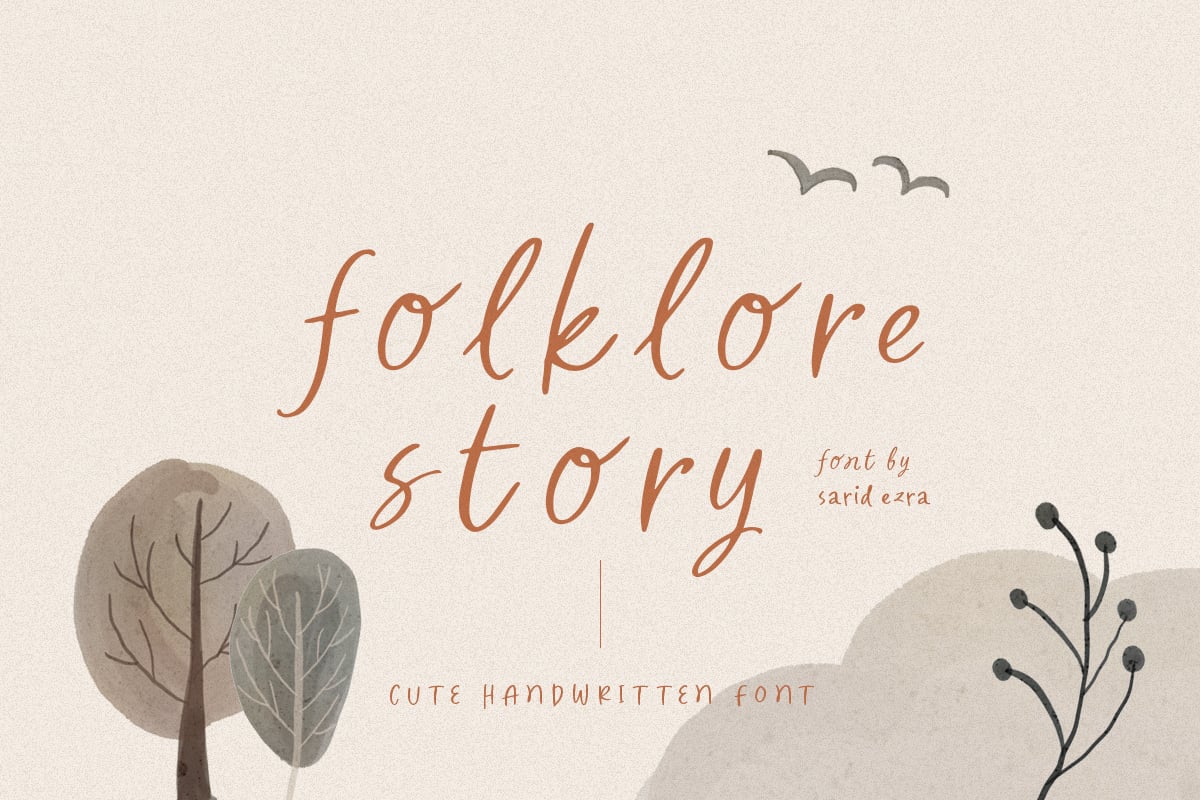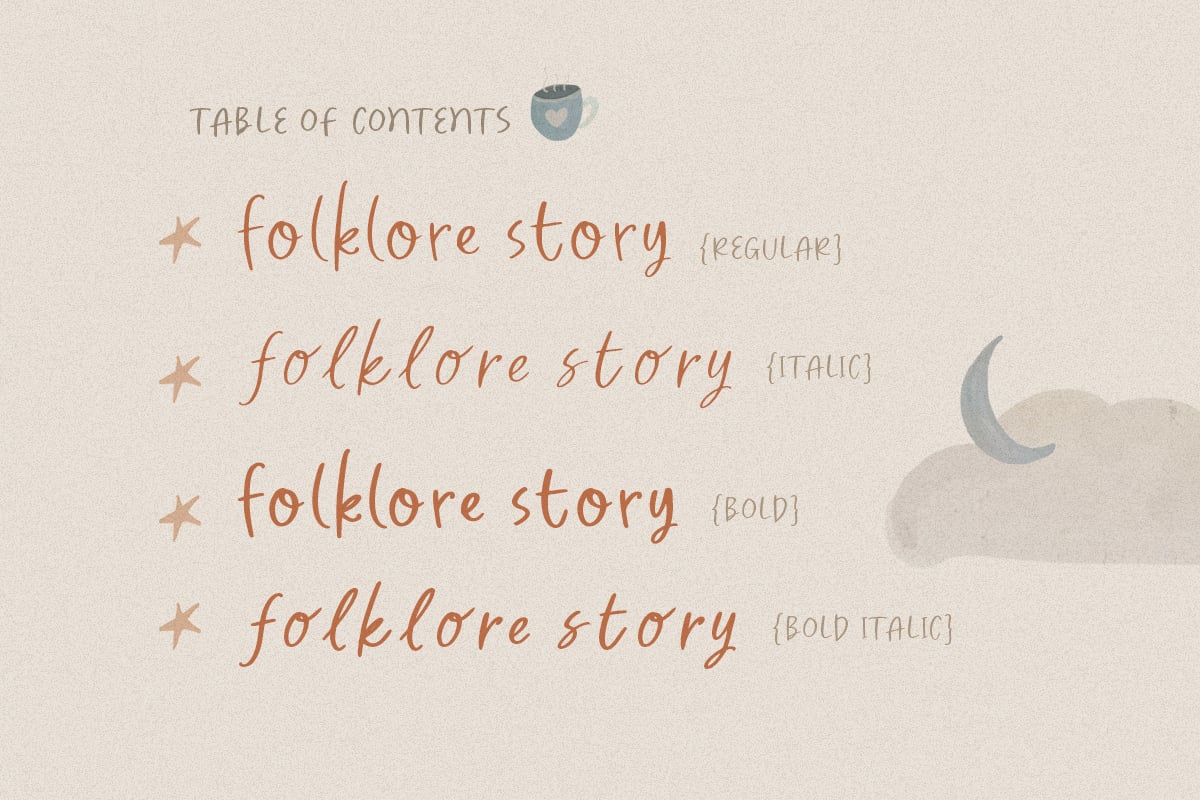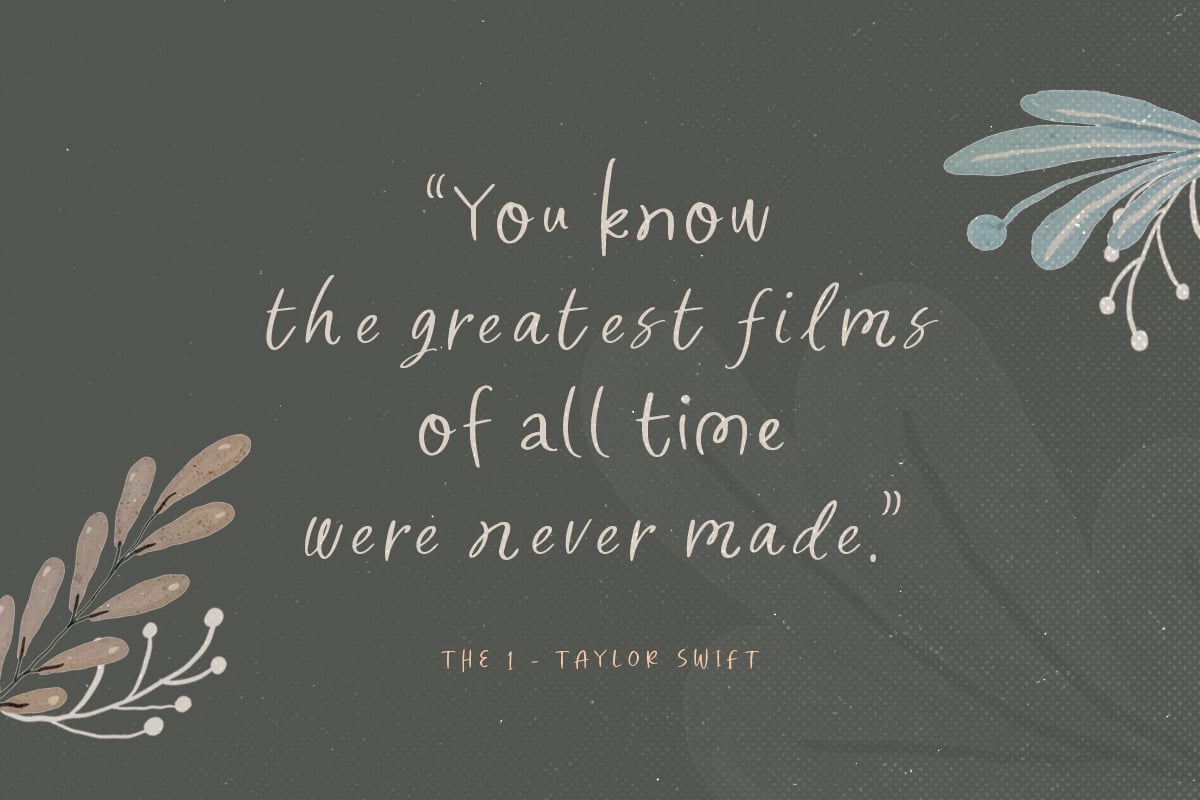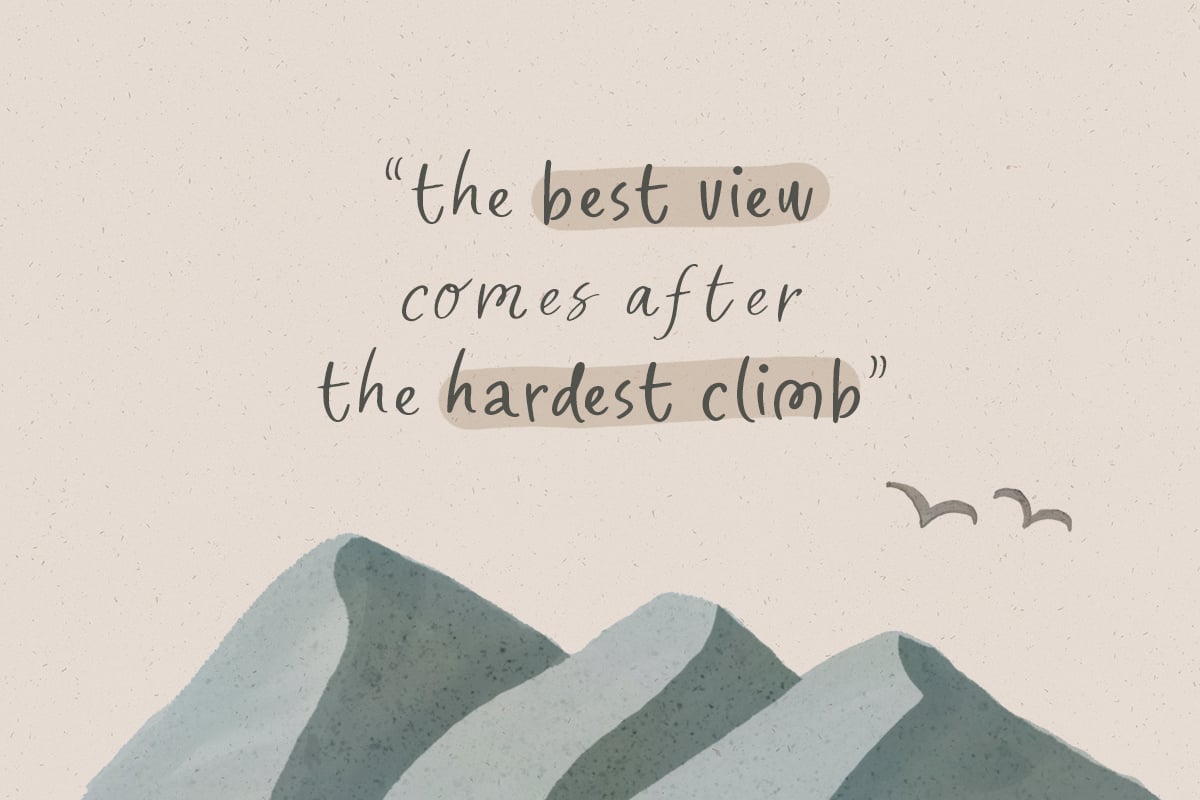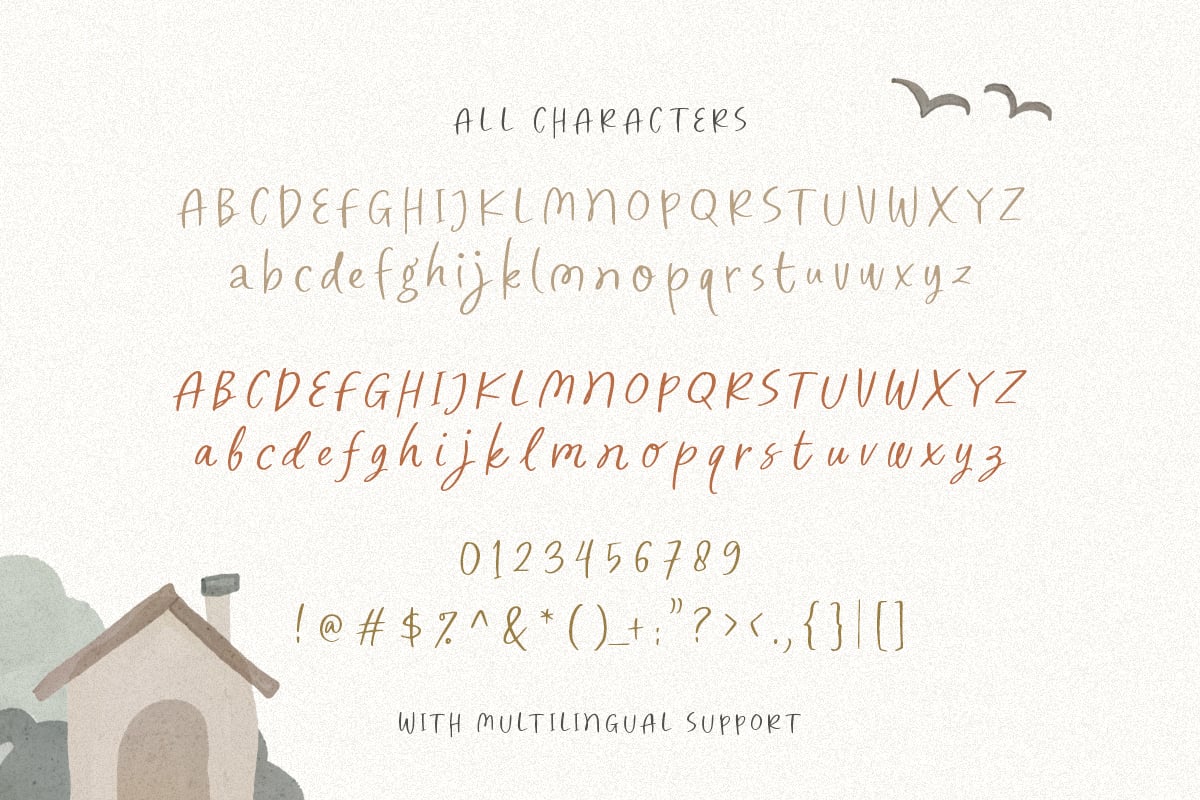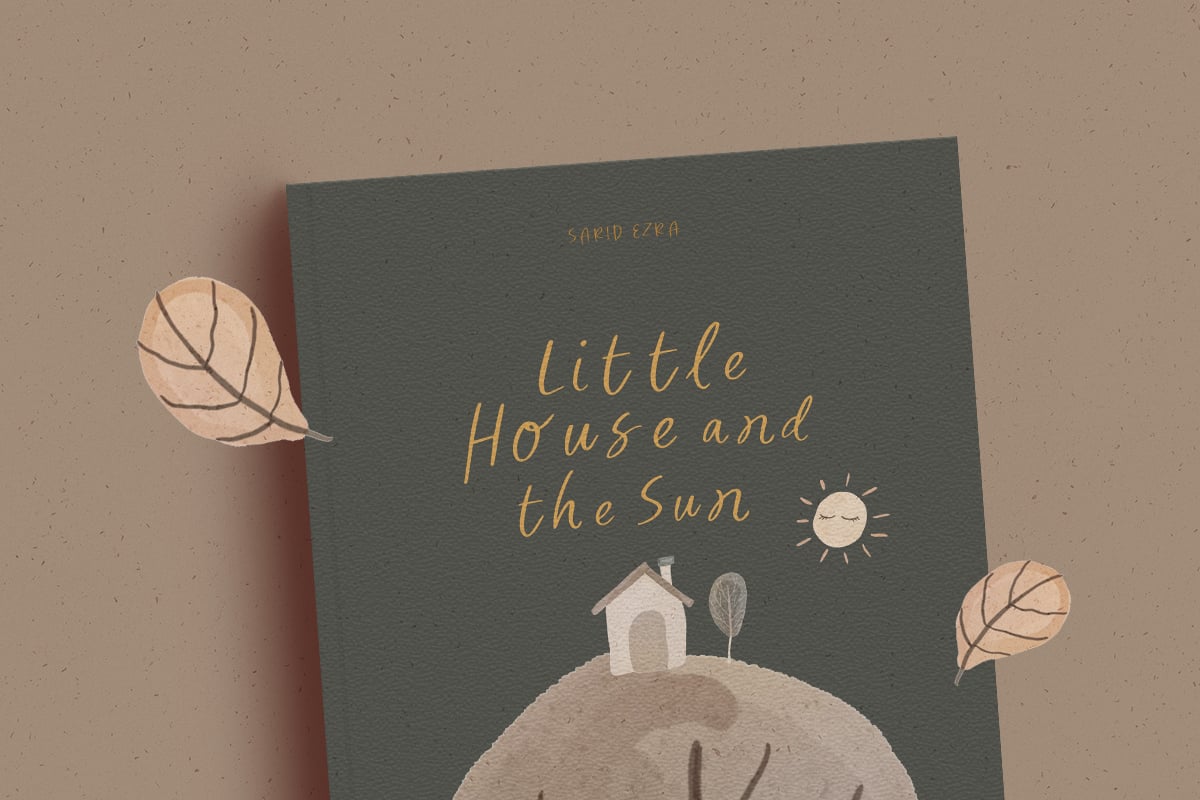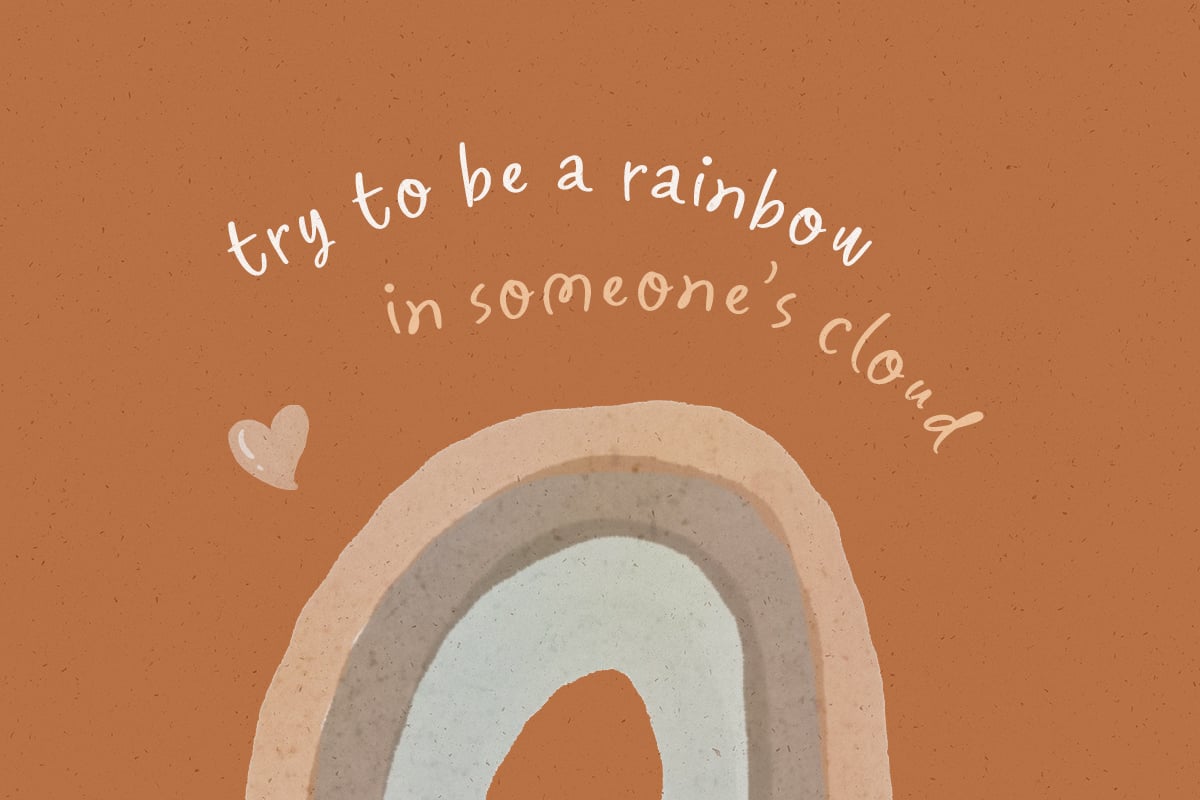
Folklore Story – Cute Font
Introducing, Folklore Story!
Folklore Story is a cute handwritten font that contain lowercase, uppercase, symbol, and also support multi language. This package also comes with italic, and bold version. You can use this fonts to make a logo for branding, for book cover, merchandise, or handwritten quote.
Foreign Languages Support:
ÀÁÂÃÄÅÇÈÉÊËÌÍÎÏÑÒÓÔÕÖØÙÚÛÜÝßàáâãäåæçèéêëìíîïñòóôõöøùúûüýÿ